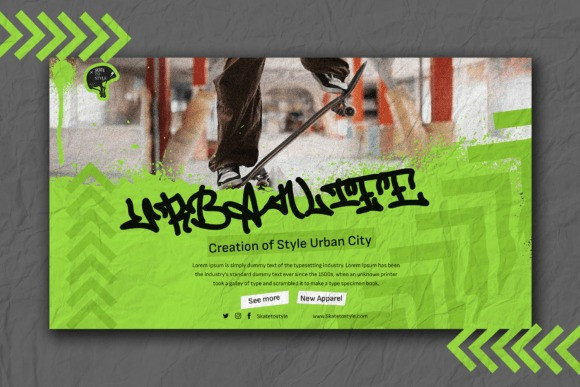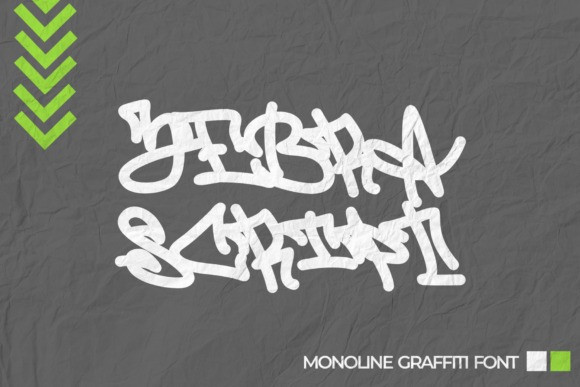
Zebra Script Typeface
Zebra Script Typeface is a monoline graffiti font that combines the characteristics of a natural handwritten style with the uniform stroke width typical of monoline fonts. This fusion results in a unique typographic aesthetic that exudes spontaneity and urban flair.
With its monoline structure and natural handwritten appearance, “Zebra Script” offers a versatile typographic solution for a wide range of design projects. Whether used for street art, posters, branding materials, or other urban-themed designs, this font adds a touch of authenticity and dynamism to the typography, capturing the essence of graffiti-inspired expression.